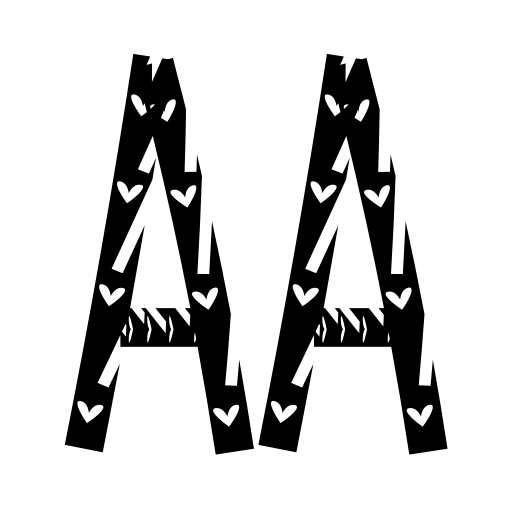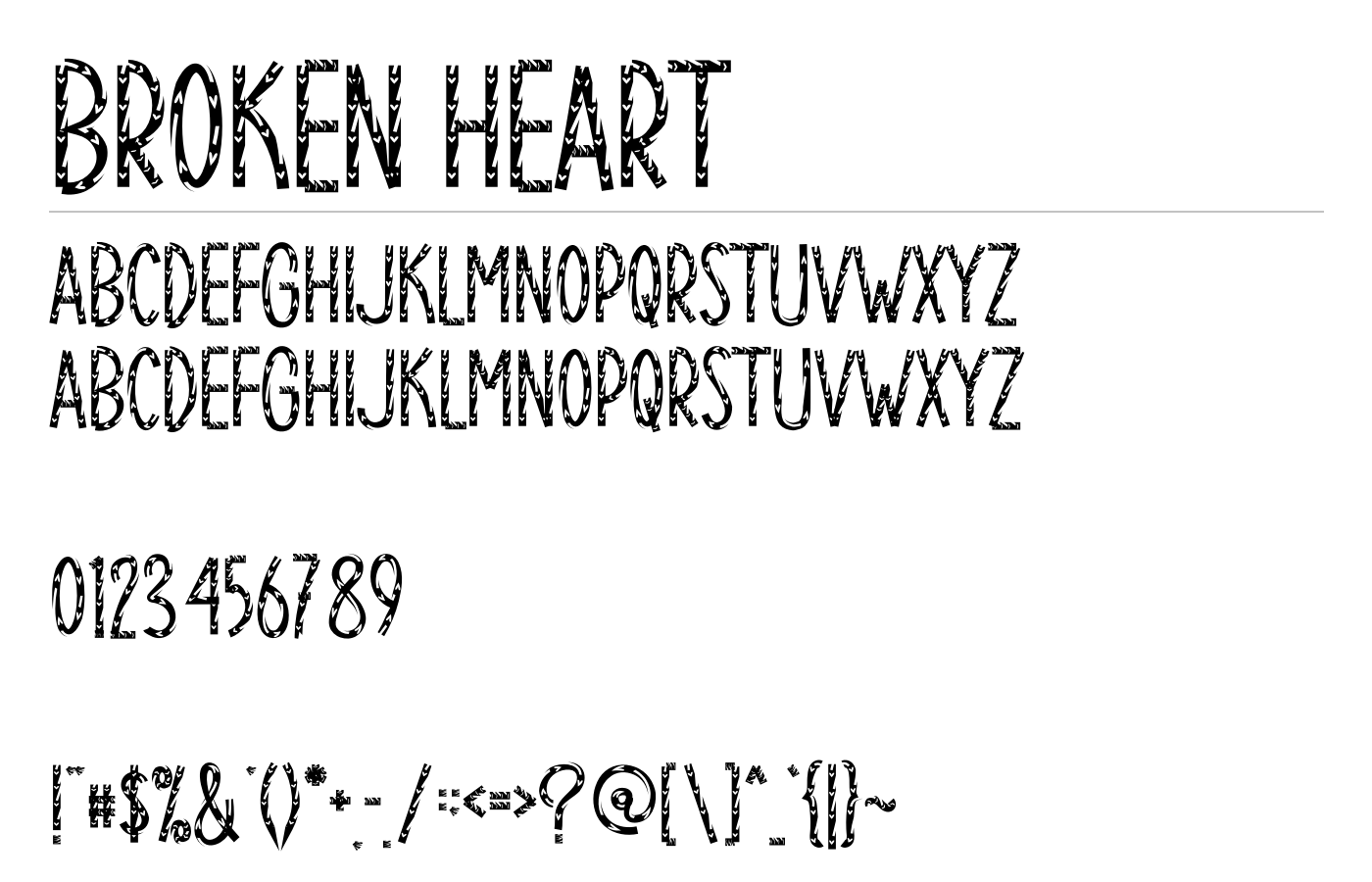
Broken Heart Font is a decorative, narrow sans serif typeface with a playful and edgy vibe. Its jagged, uneven strokes filled with broken heart motifs give it a quirky, distressed appearance, making it perfect for creative, informal designs like posters, branding for alternative fashion, or eye-catching headlines. This font works best when you want to add a unique, emotional, or rebellious touch to your project.
Broken Heart Font
About Broken Heart Font